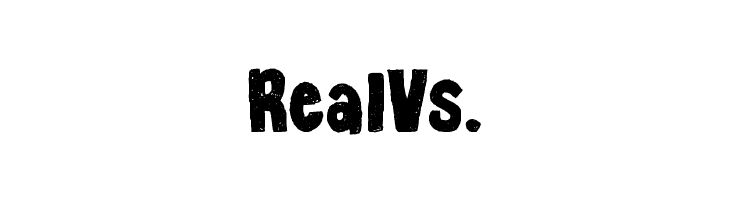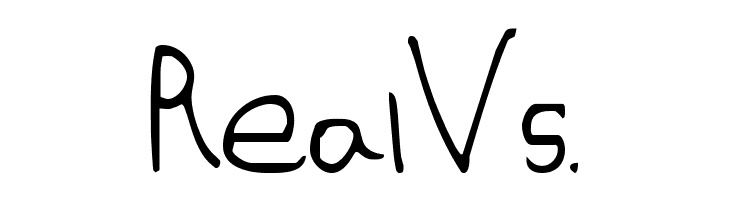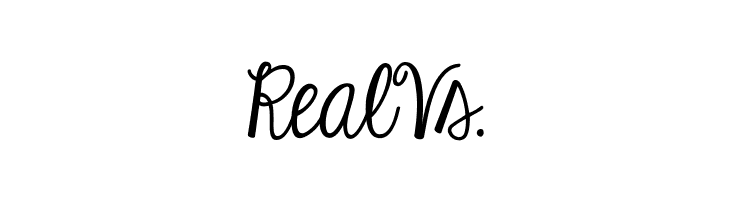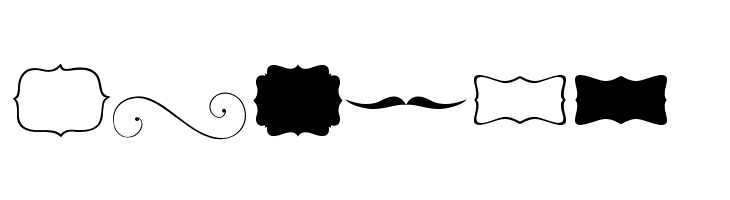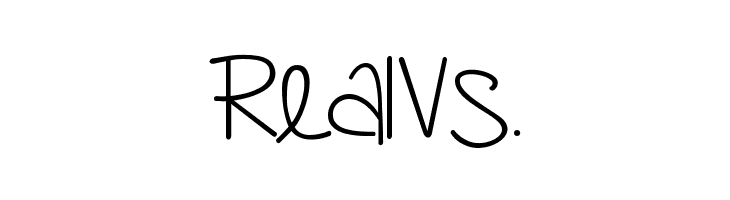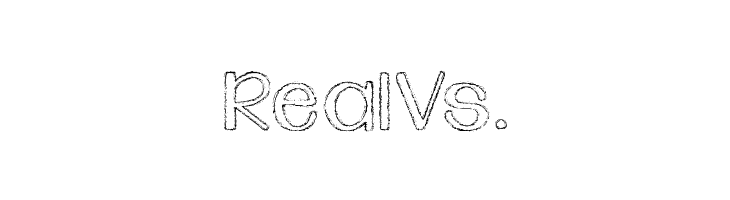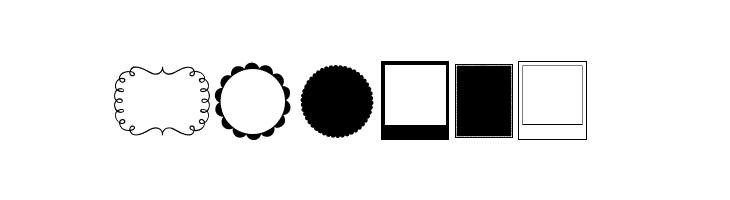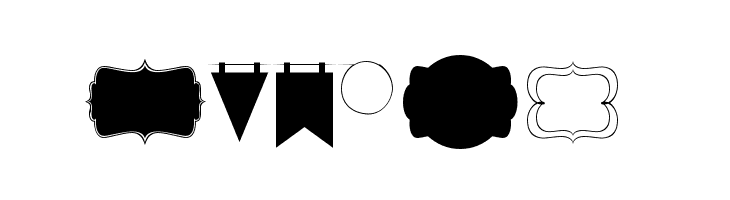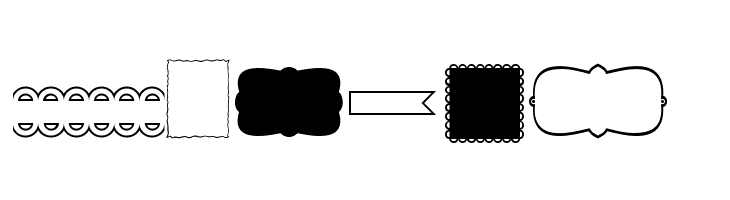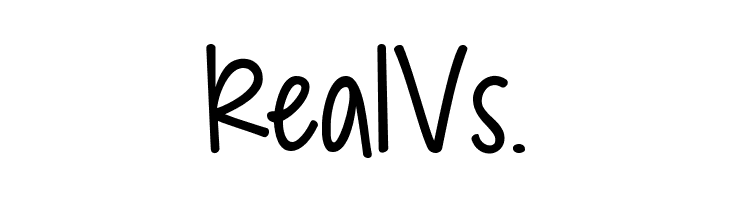
A playful, handwritten font with bold, rounded strokes and a whimsical style.
A playful, rounded font with smooth curves and uniform stroke width.
A bold, circular font with decorative stars and high contrast.
A playful, informal handwritten font with smooth, rounded strokes.
A playful, handwritten font with a whimsical and informal style.
A bold, textured font with a playful, handcrafted feel.
A modern sans-serif font with smooth curves and consistent strokes.
A whimsical and flowing script font with elegant, fluid strokes.
A playful, outlined font with rounded, smooth characters and a whimsical style.
A bold, modern font with geometric lines and uniform spacing.
A playful, bold font with a bouncy and dynamic style.
A playful and whimsical handwritten font with fluid and dynamic letterforms.
A modern, rounded font with uniform stroke width and excellent readability.
A playful, informal handwritten font with dynamic strokes and quirky character designs.
A playful handwritten font with a casual and friendly appearance.
A distressed, vintage-style font with a hand-crafted appearance.
A playful, hand-drawn font with a whimsical and casual style.
A playful, handwritten font with whimsical elements and decorative characters.
A playful, handwritten font with rounded edges and a casual style.
A playful, handwritten script font with flowing, cursive letters.
A playful, handwritten font with smooth, rounded lines.
A playful, hand-drawn font with rounded, friendly characters.
A bold, handwritten font with a playful and friendly style.
A playful, handwritten italic font with smooth, connected characters.
A whimsical and playful font with unique curves and straight lines.
A playful, casual handwritten font with smooth, flowing lines.
A playful, rounded font with a whimsical and friendly style.
Whimsical dingbat font with frames, banners, swirls, and mustaches.
A versatile collection of decorative frames and shapes with unique styles.
A decorative dingbat font with frames, banners, and label shapes.
A decorative dingbat collection of hand-drawn frames and embellishments.
A playful collection of decorative frames and shapes in bold silhouette style.
A playful, decorative set of frames and arrows with unique patterns and handwritten words.
A versatile set of decorative frames and arrows with playful and intricate designs.
A playful, handwritten font with smooth, rounded edges and a casual style.